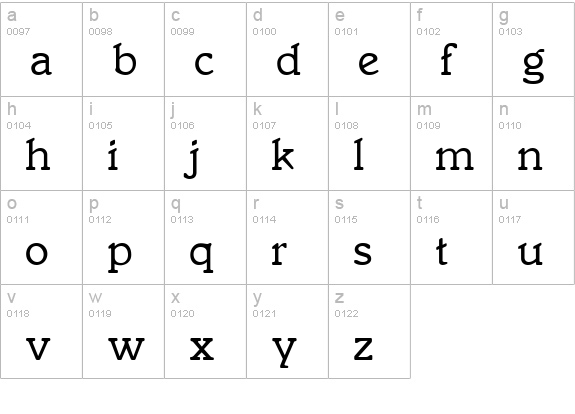
Italia Regular is the standard, neutral variant in the Italia typeface family \xE2\x80\x94 well suited to general body text, paragraphs, and standard typographic work.
Italia Regular font is a stunning typeface that exudes elegance and sophistication. Its timeless design and balanced letterforms make it the perfect choice for a wide range of projects, including branding, advertising, and editorial design. This font features a harmonious combination of classic proportions and modern details, resulting in a versatile and legible typeface. The clean lines and sharp edges create a sense of professionalism, while the subtle curves add a touch of femininity and grace. Italia Regular font is freely available to download at FontsMarket.com, making it easily accessible to designers and creatives alike. With its extensive character set and multiple language support, this font allows you to express your ideas and messages in various contexts and languages. Whether you're working on a logo design, a website layout, or a print publication, Italia Regular font will elevate your project to new heights. Its versatility and timeless appeal make it a reliable choice that can adapt to any design concept or aesthetic. With Italia Regular font, you can effortlessly capture attention and convey your message with clarity and style. It is a truly remarkable typeface that combines beauty and functionality, making it a valuable asset for any design arsenal. Don't miss out on the opportunity to enhance your creative projects with this exceptional font – download Italia Regular for free at FontsMarket.com today.